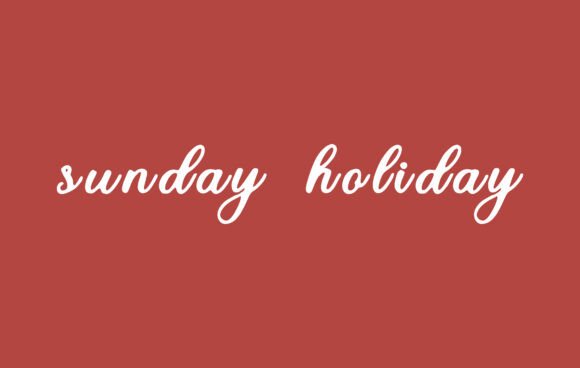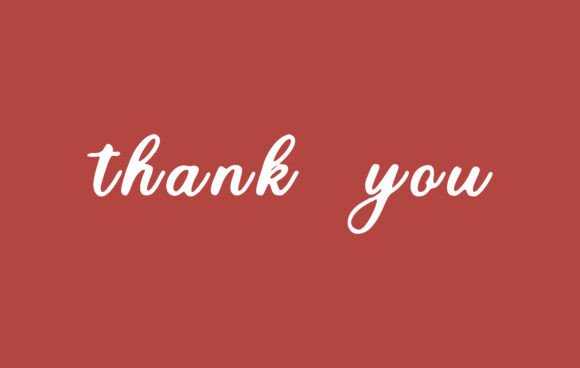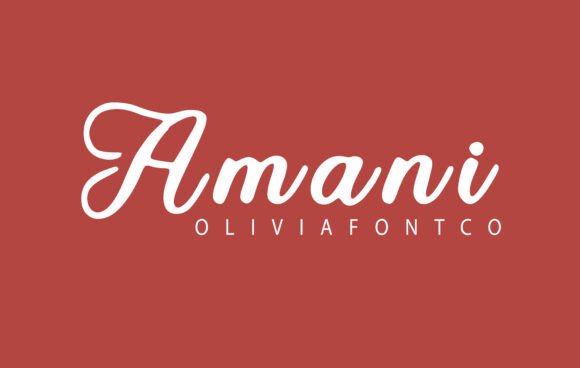
Amani Font: The Perfect Handwritten Font for Your Creative Projects
Are you looking for a font that can add a touch of romance and elegance to your designs? Look no further than Amani Font, an authentic handwritten font that is sure to become a true favorite among designers and crafters. In this article, we’ll explore the features and benefits of Amani Font, and show you how it can elevate your creative ideas to the highest level.
What is Amani Font?
Amani Font is a beautifully designed handwritten font that exudes a romantic touch. With its flowing lines and delicate curves, this font is perfect for creating stunning designs that capture the heart. Whether you’re working on a magazine headline, social media post, branding project, or wedding invitation, Amani Font is the perfect choice.
Key Features of Amani Font
So what makes Amani Font so special? Here are some of its key features:
- Authentic Handwritten Style: Amani Font is designed to look like it was written by hand, giving it a personal and unique touch.
- Legible and Readable: Despite its handwritten style, Amani Font is highly legible and readable, making it perfect for use as both title and body text.
- Romantic and Elegant: Amani Font has a distinctly romantic and elegant feel, making it perfect for designs that require a touch of sophistication.
- Versatile: Amani Font can be used for a wide range of designs, from magazine headlines and social media posts to branding, wedding invitations, and more.
Why Choose Amani Font?
So why should you choose Amani Font for your next design project? Here are just a few reasons:
- Adds a Personal Touch: Amani Font’s handwritten style adds a personal touch to your designs, making them stand out from the crowd.
- Easy to Read: Amani Font is highly legible, making it easy for your audience to read and understand your message.
- Enhances Creativity: Amani Font’s unique and elegant style can inspire your creativity and help you come up with innovative design ideas.
- Perfect for a Variety of Designs: Whether you’re working on a magazine headline, social media post, or wedding invitation, Amani Font is the perfect choice.
- Use it as a Title Font: Amani Font is perfect for use as a title font, adding a touch of elegance and sophistication to your designs.
- Use it as a Body Font: Amani Font is also highly legible as a body font, making it perfect for use in longer blocks of text.
In conclusion, Amani Font is a beautiful and versatile handwritten font that is perfect for designers and crafters looking to add a touch of romance and elegance to their designs. With its authentic handwritten style, legibility, and romantic touch, Amani Font is sure to become a true favorite among designers. Whether you’re working on a magazine headline, social media post, branding project, or wedding invitation, Amani Font is the perfect choice. So why wait? Download Amani Font today and take your creative ideas to the highest level!